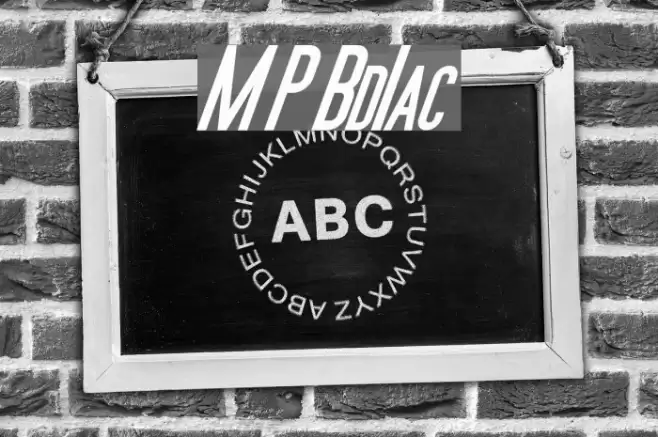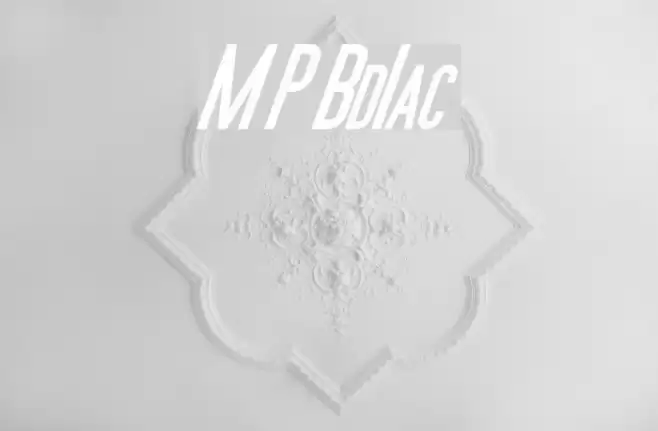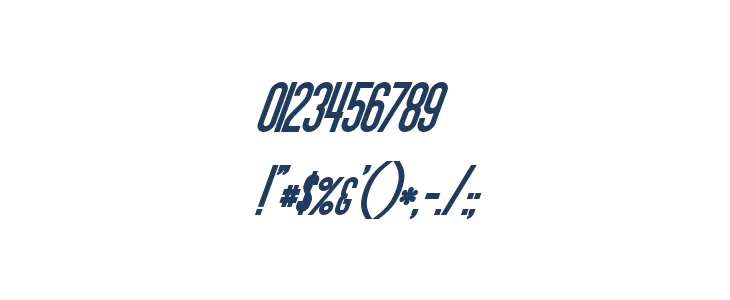
Movie Poster BoldItalic Font
Movie Poster BoldItalic Description
This font features a bold and italicized style with a strong, dynamic presence. The characters are slightly condensed, giving them a sleek and modern appearance. The strokes are thick and consistent, providing a high contrast that enhances readability and impact. The slanted design adds a sense of motion and energy, making it ideal for attention-grabbing headlines or titles. The numerals and special characters maintain the same bold and italicized characteristics, ensuring uniformity across all text elements.
A bold, italicized font with a dynamic and modern style from Formal fonts.